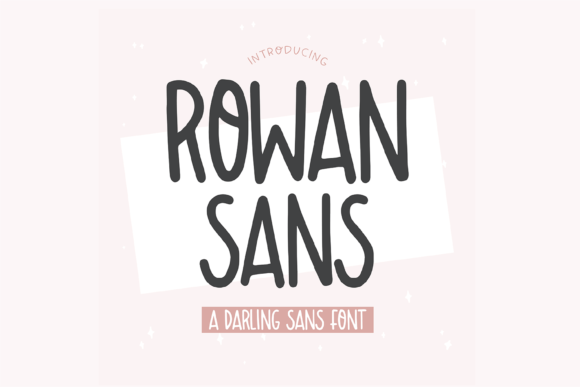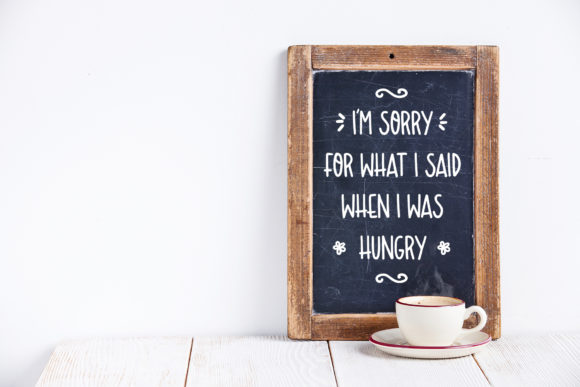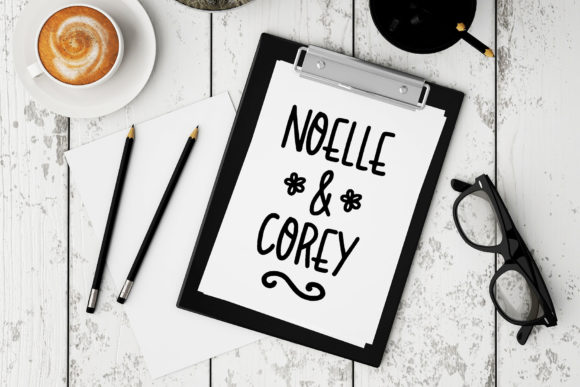
About Rowan Sans Font
Rowan Sans is a simple and cute handwritten font. Its natural and unique style makes it incredibly fitting to a large pool of designs.